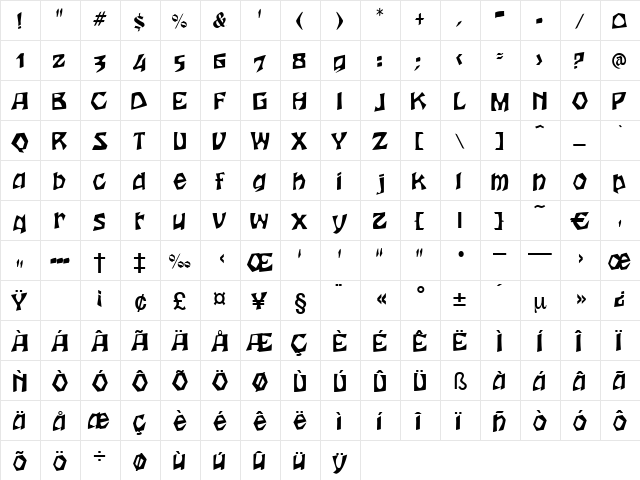
Stromboli Regular
Design Context for Stromboli Typeface
Stromboli is a composed and adaptable typeface that performs quietly and consistently across a wide range of design contexts.